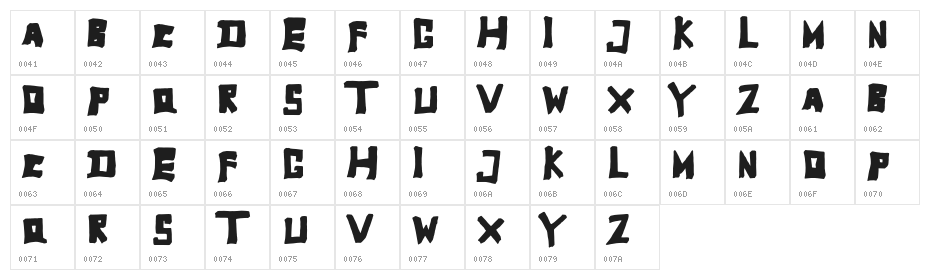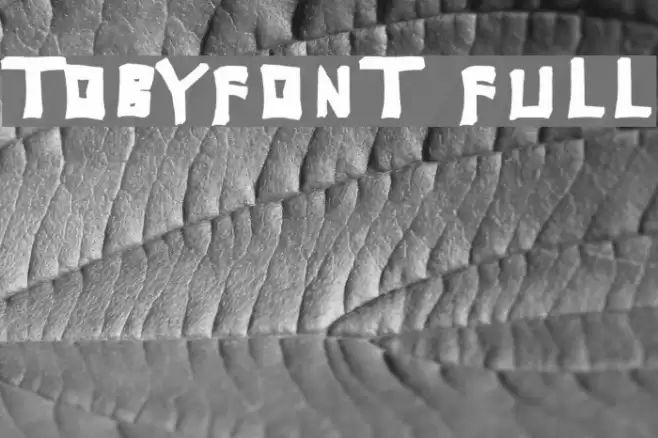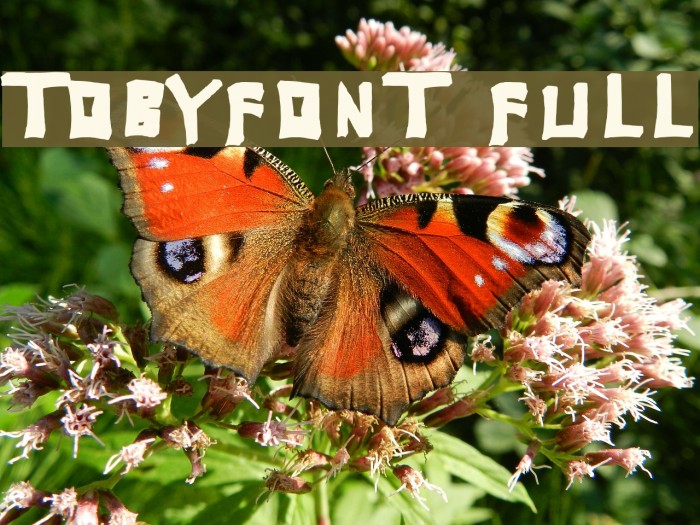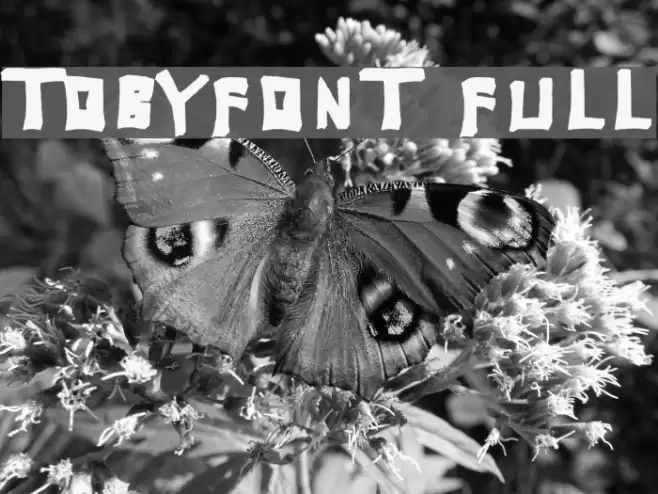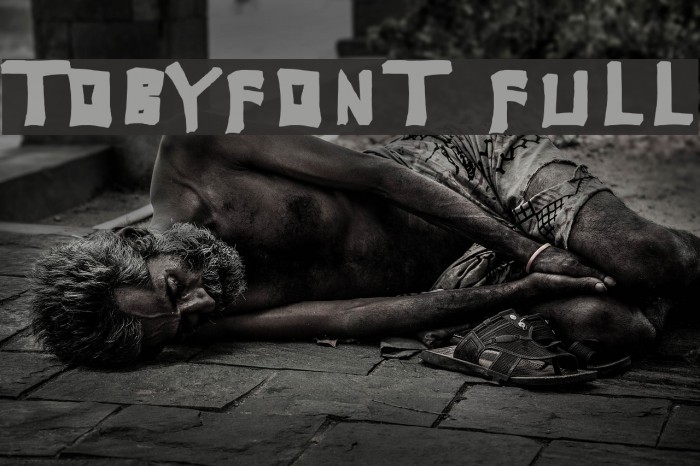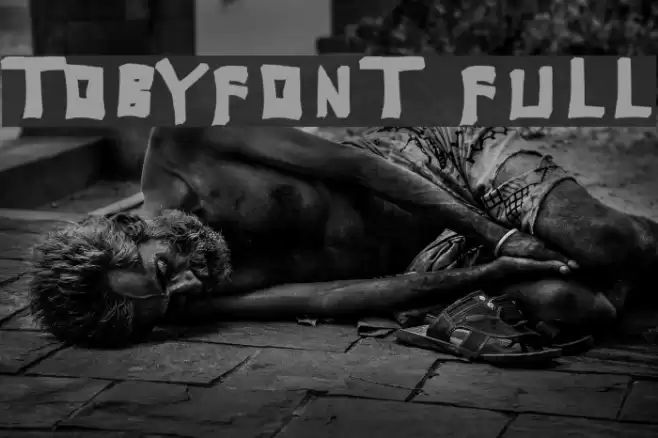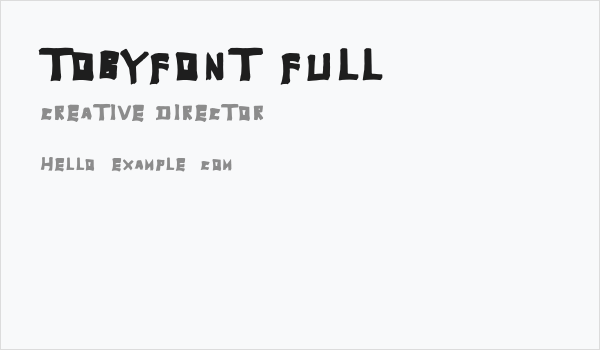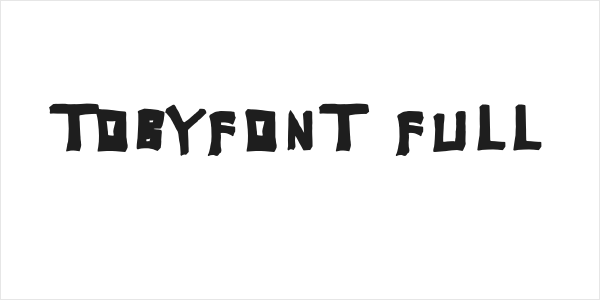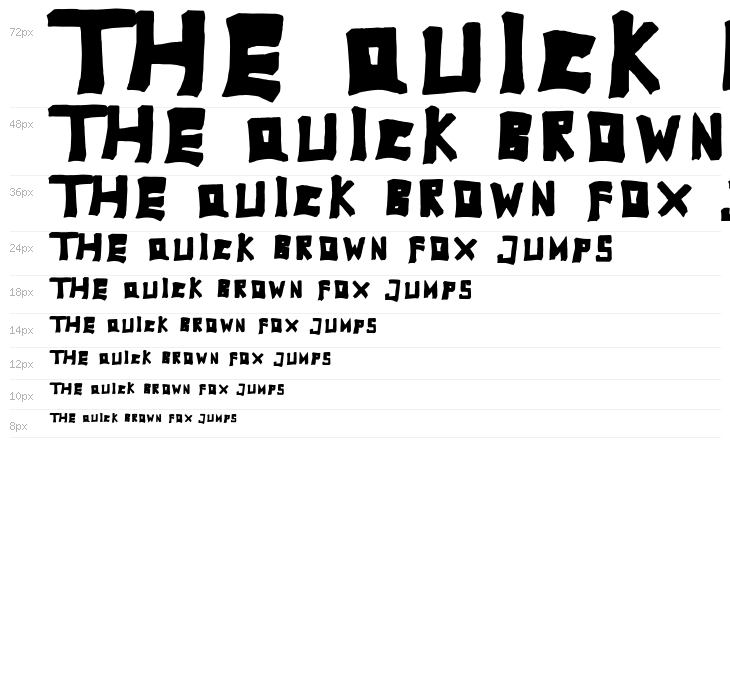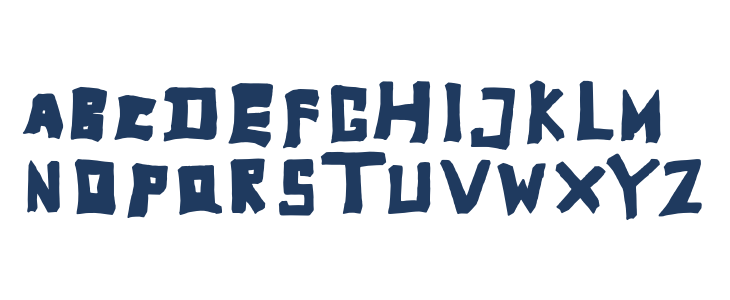
TobyFont Full Font
TobyFont Full Description
This font features a bold and dynamic style with a hand-drawn appearance, characterized by irregular and jagged edges that give it a rugged and artistic feel. The uppercase and lowercase letters maintain a consistent height, creating a uniform look despite their unique, uneven shapes. The font's strokes are thick and heavy, contributing to its strong visual impact. The characters are slightly condensed, enhancing the boldness and making it suitable for attention-grabbing designs. The overall style is reminiscent of graffiti or street art, making it ideal for projects that require a raw and edgy aesthetic.
| Overall Style | Urban, Edgy, Artistic |
| Proposed Projects | Ideal for posters, album covers, streetwear branding, and urban-themed designs. |